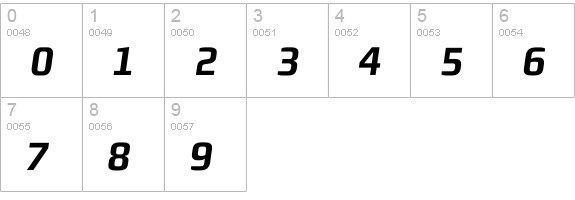
MorganSnLining Bold Oblique Font Details
MorganSnLining Bold Oblique is a strong, high-contrast, italic variant in the MorganSnLining typeface family \xE2\x80\x94 well suited to headlines, attention-grabbing titles, and strong calls-to-action.
MorganSnLining Bold Oblique is a versatile and modern font that exudes confidence and style. Its bold and slanted design adds a touch of sophistication to any project, making it perfect for headlines, logos, and branding materials. The font is characterized by its clean lines and sharp angles, giving it a contemporary and edgy look. What sets MorganSnLining Bold Oblique apart is that it is available for free download at FontsMarket.com. This means that you can easily access this high-quality font without any cost, allowing you to elevate your designs without breaking the bank. Whether you're a professional designer looking for a fresh typeface or a hobbyist experimenting with different fonts, MorganSnLining Bold Oblique is a fantastic choice that will make your projects stand out. Download it today and unleash your creativity!